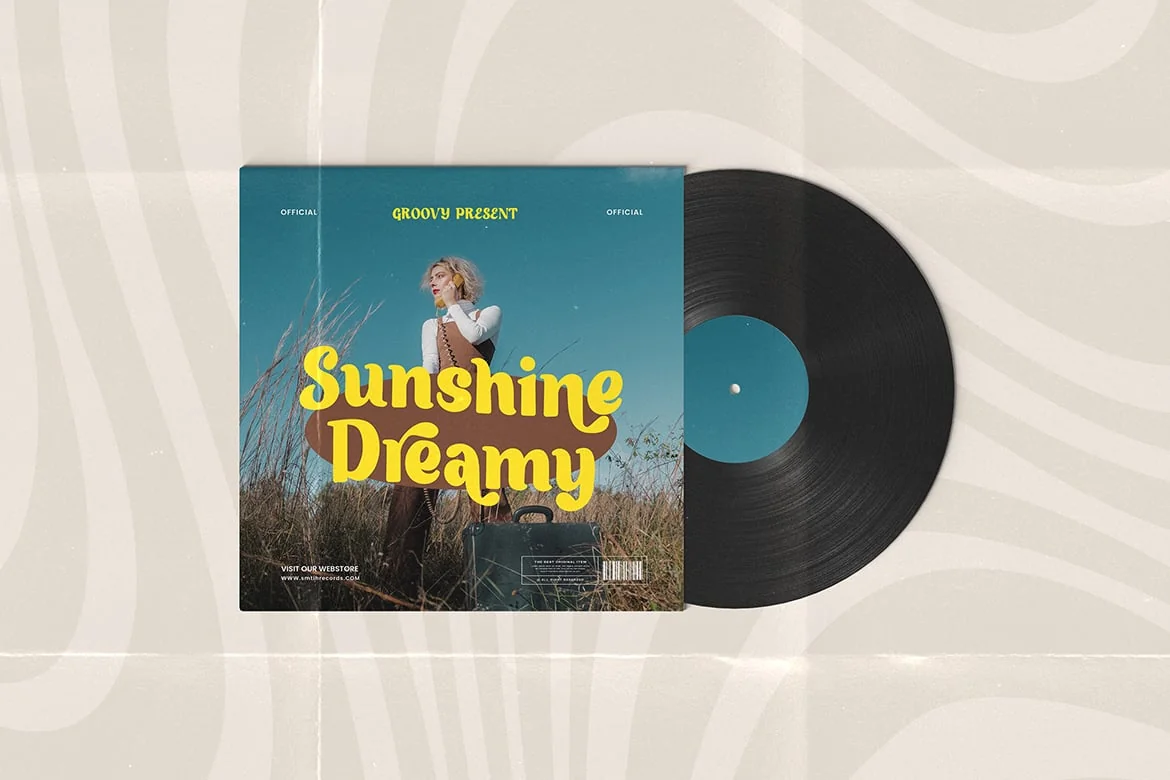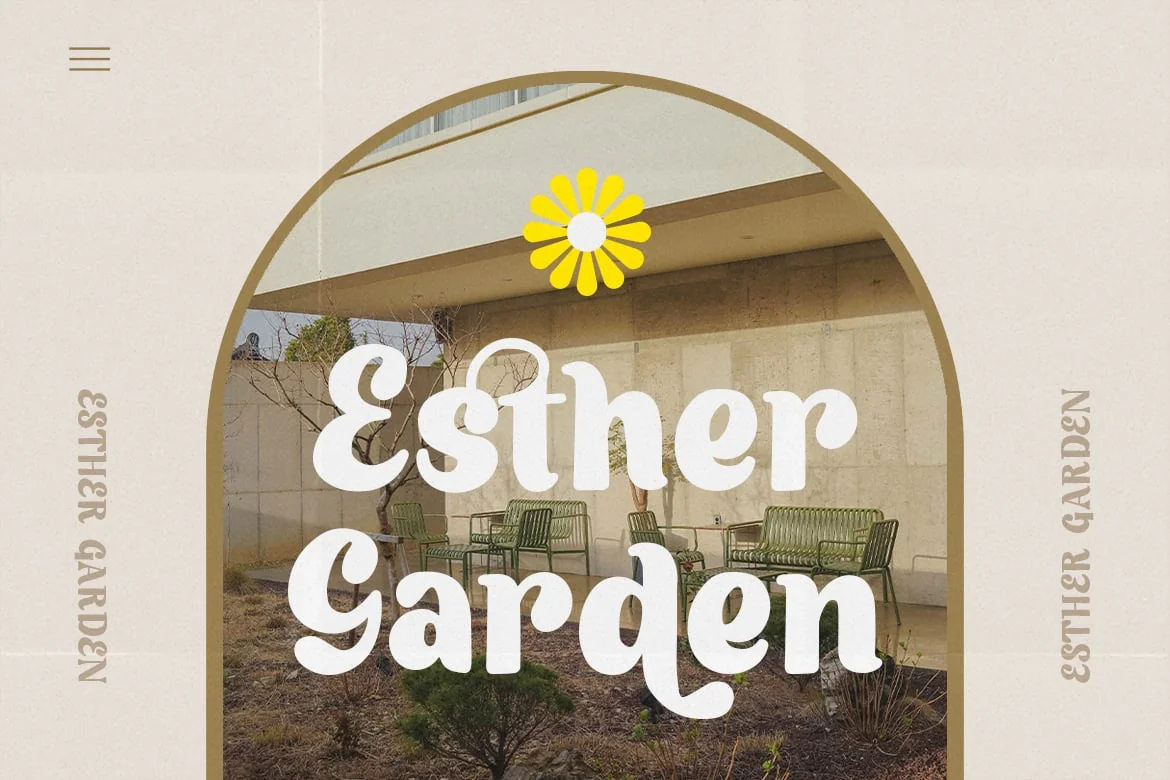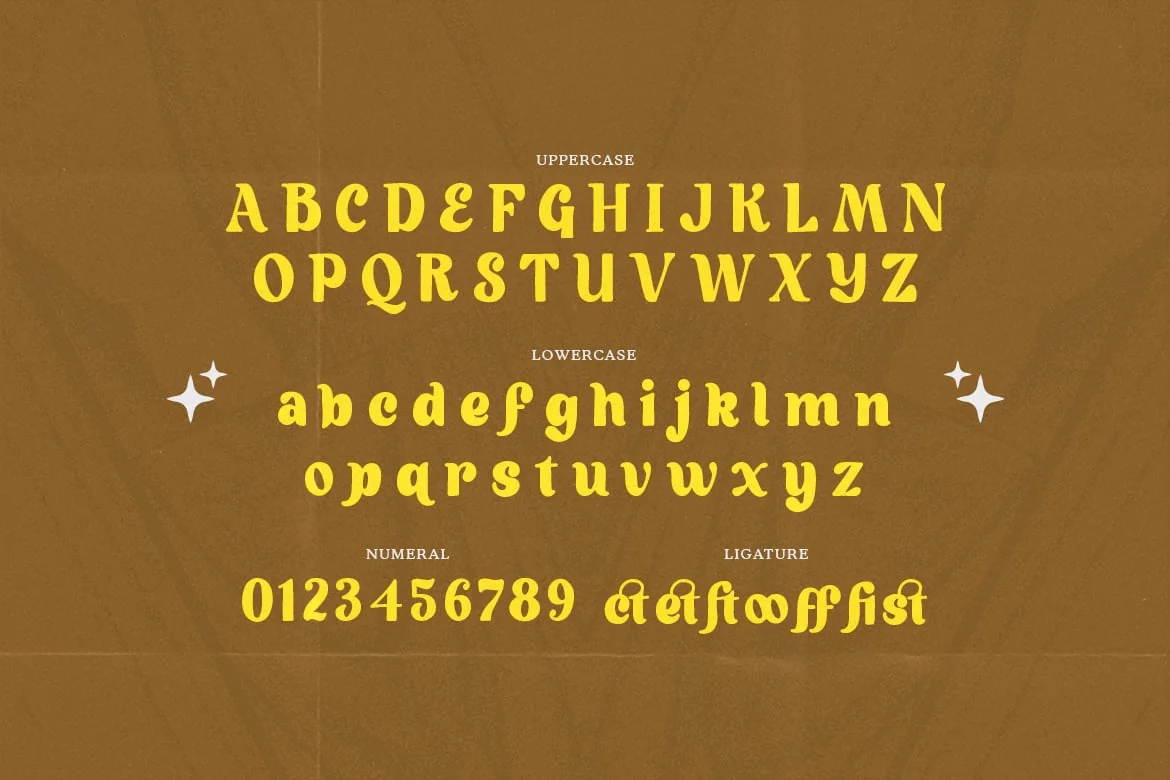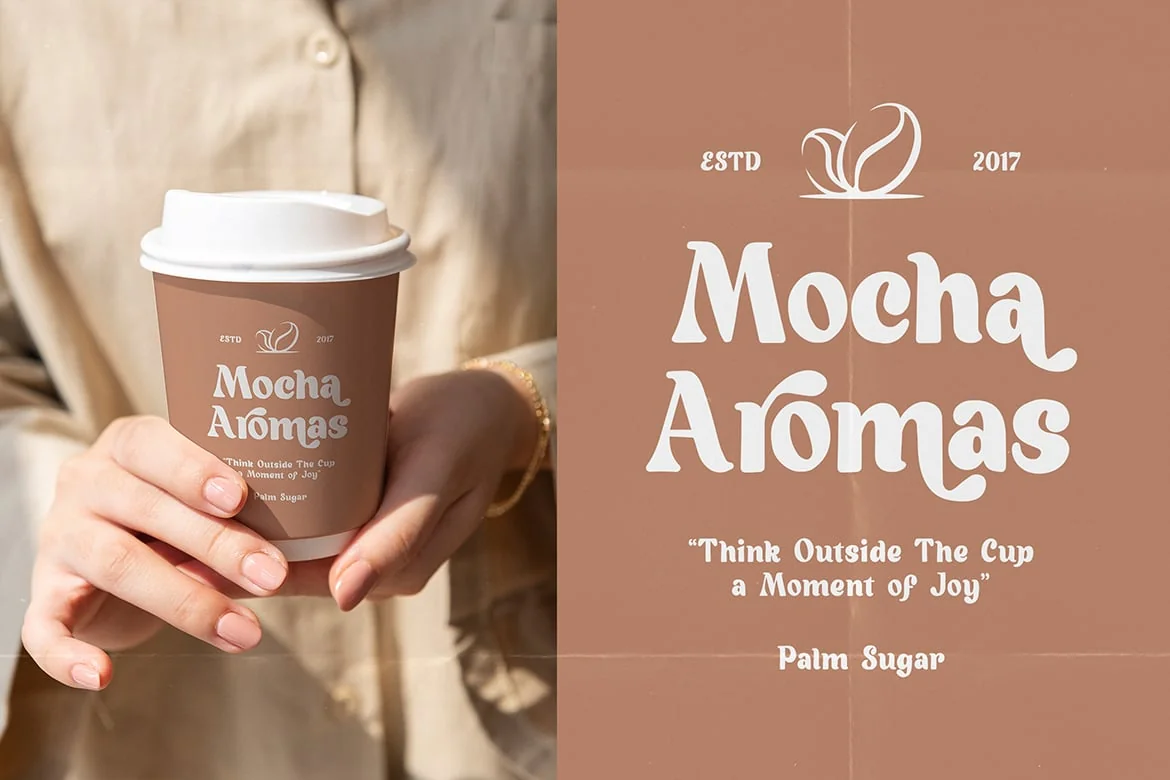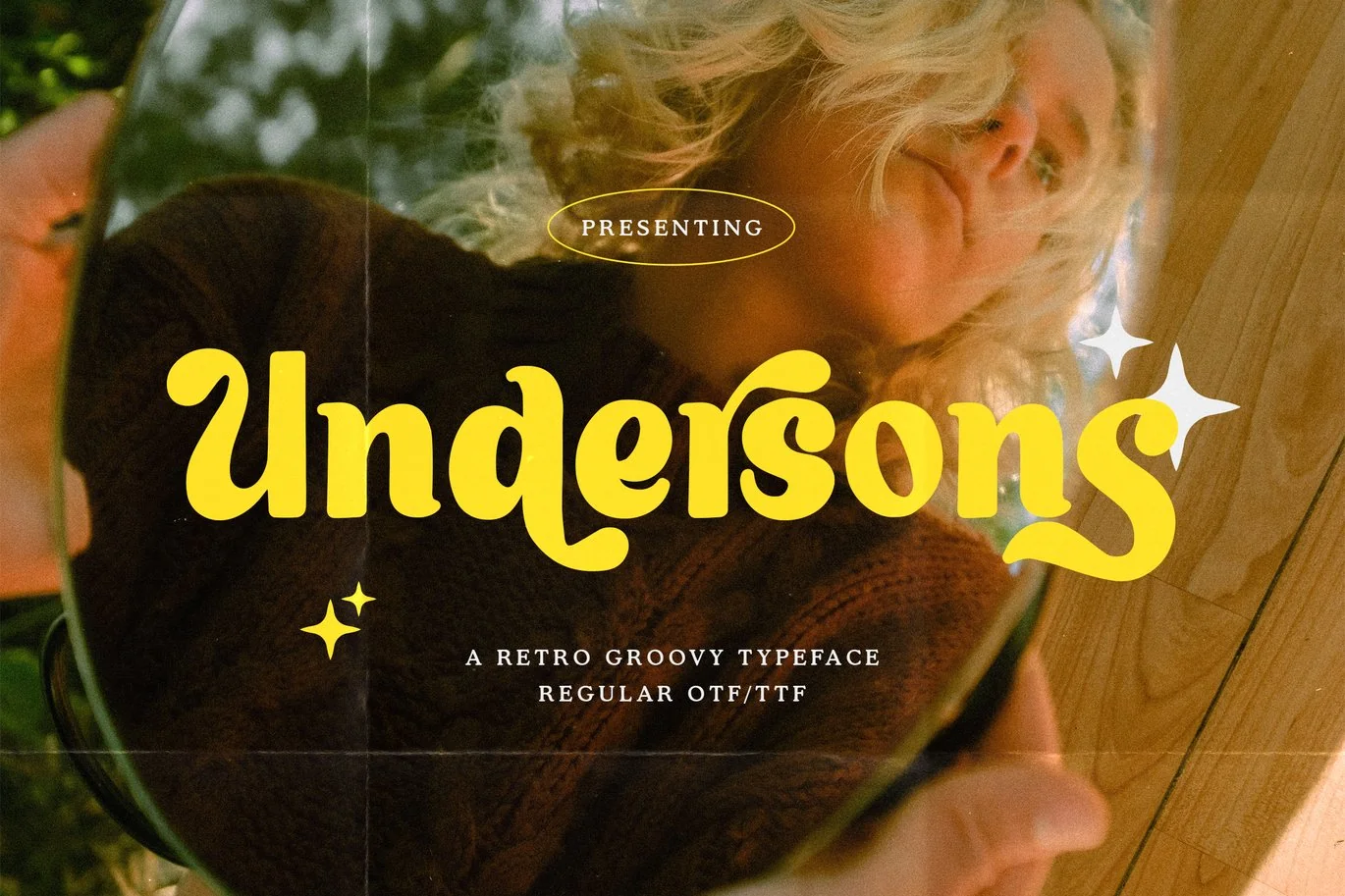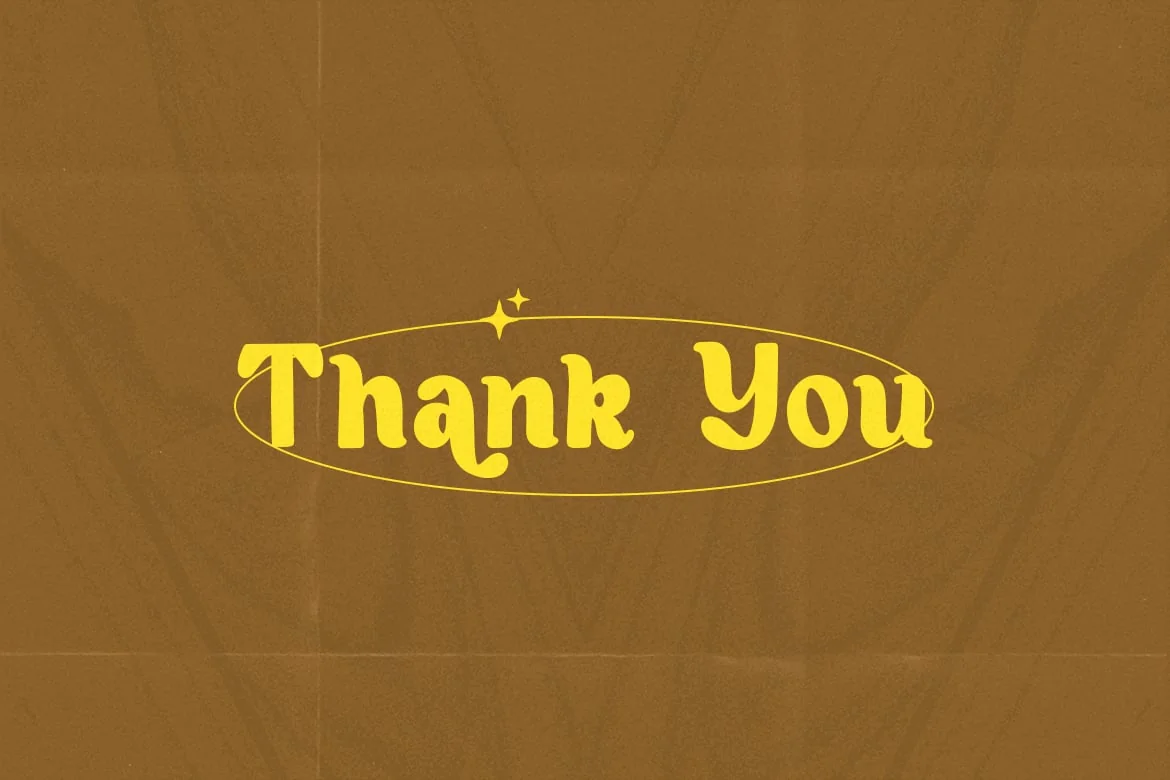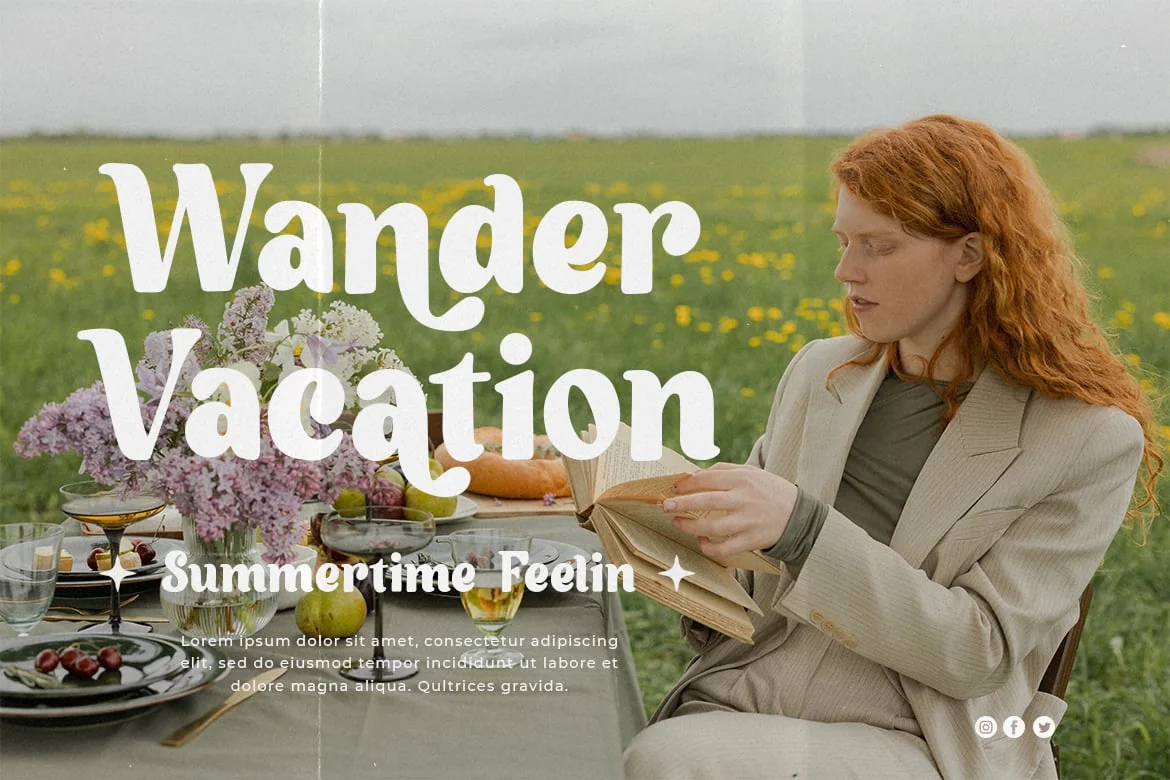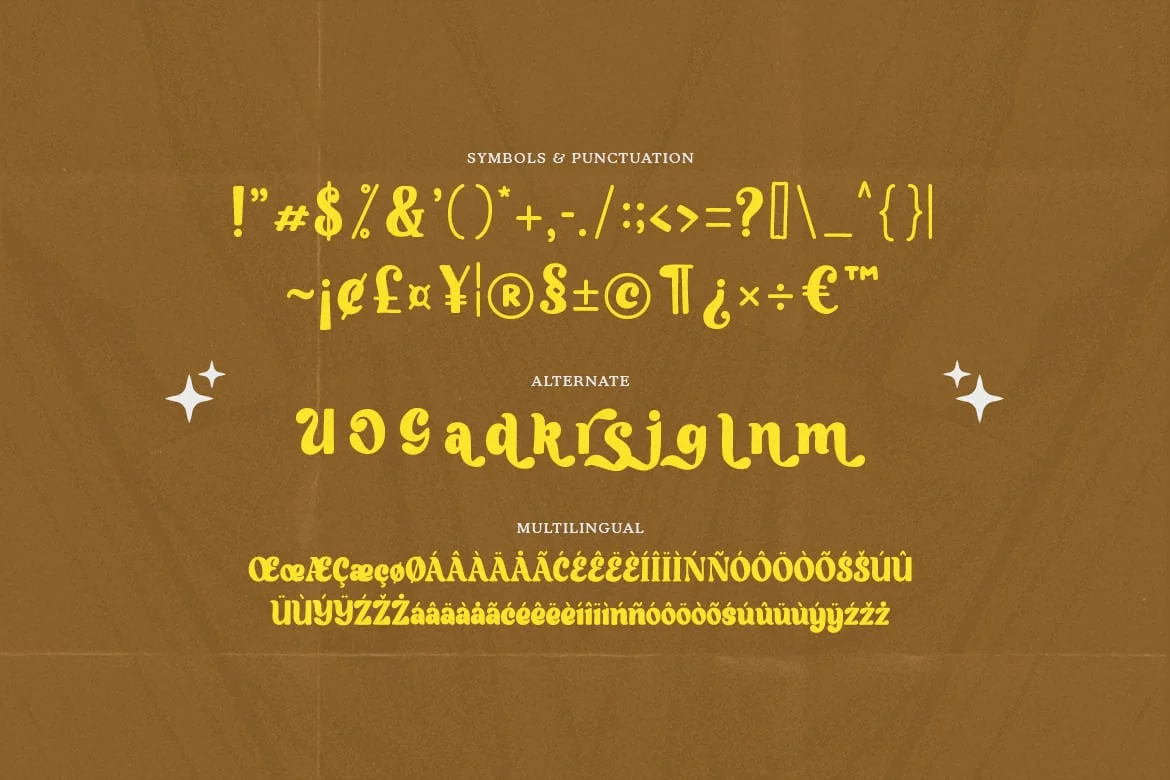
Undersons – A Retro Groovy Typeface
Undersons is a groovy retro font which will bring you to fun vibes.
This font feels playfully nostalgic and delivers an incredible groovy aesthetic.
Use this great font to add that special touch to any design idea you can think of!